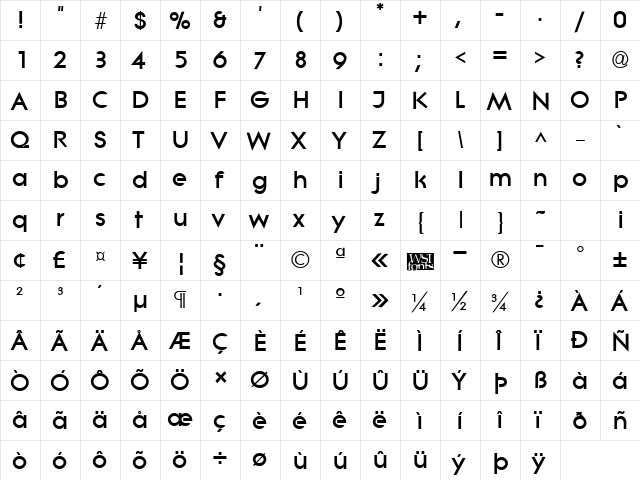
LitheExtrabold Regular
Design Context for LitheExtrabold Typeface
LitheExtrabold is a composed and adaptable typeface that performs quietly and consistently across a wide range of design contexts. Its bold stroke weight gives it real presence on the page.